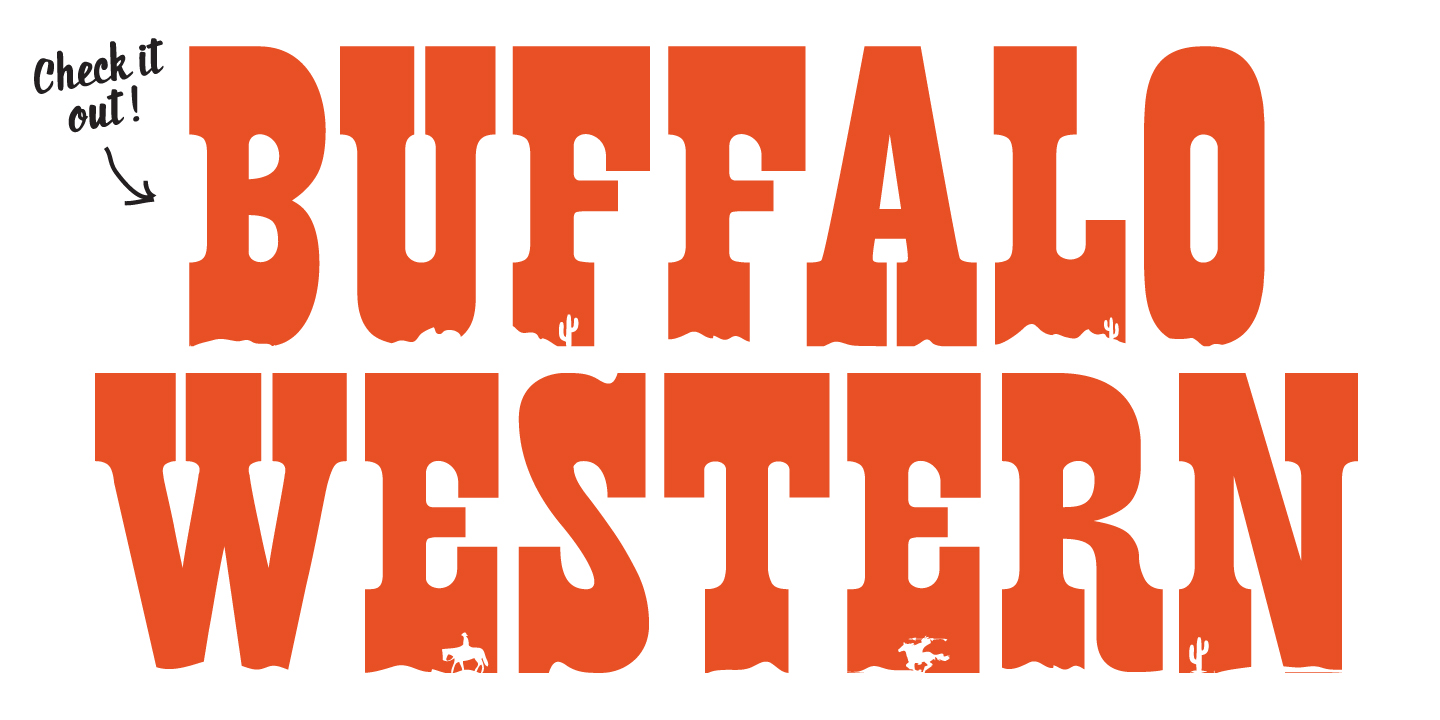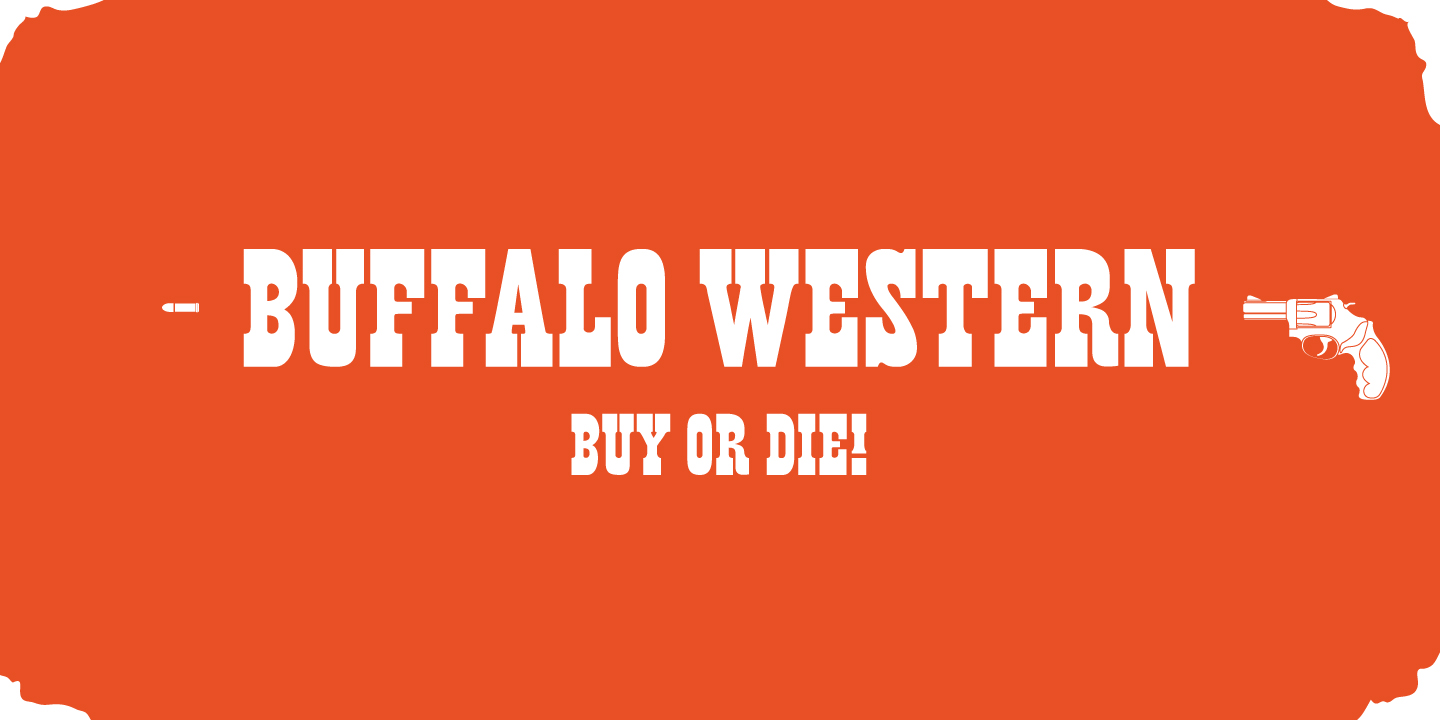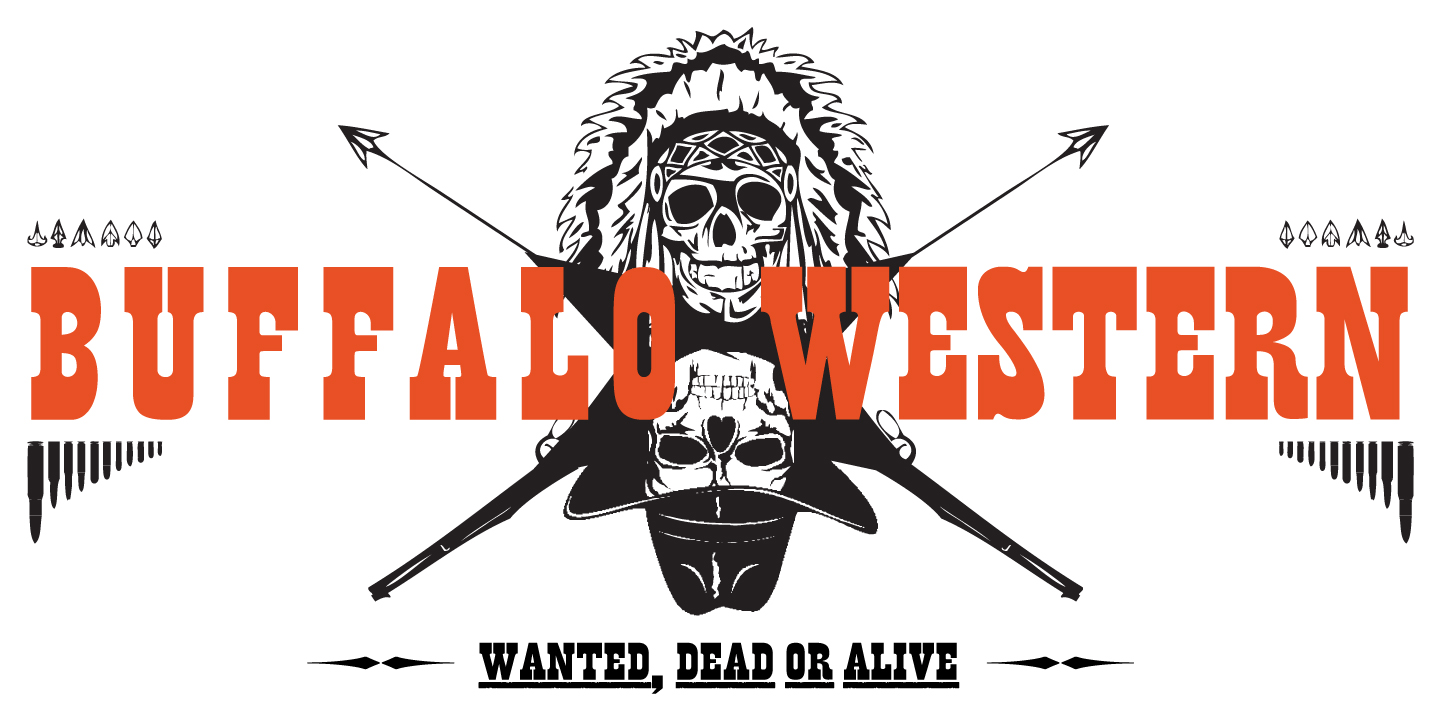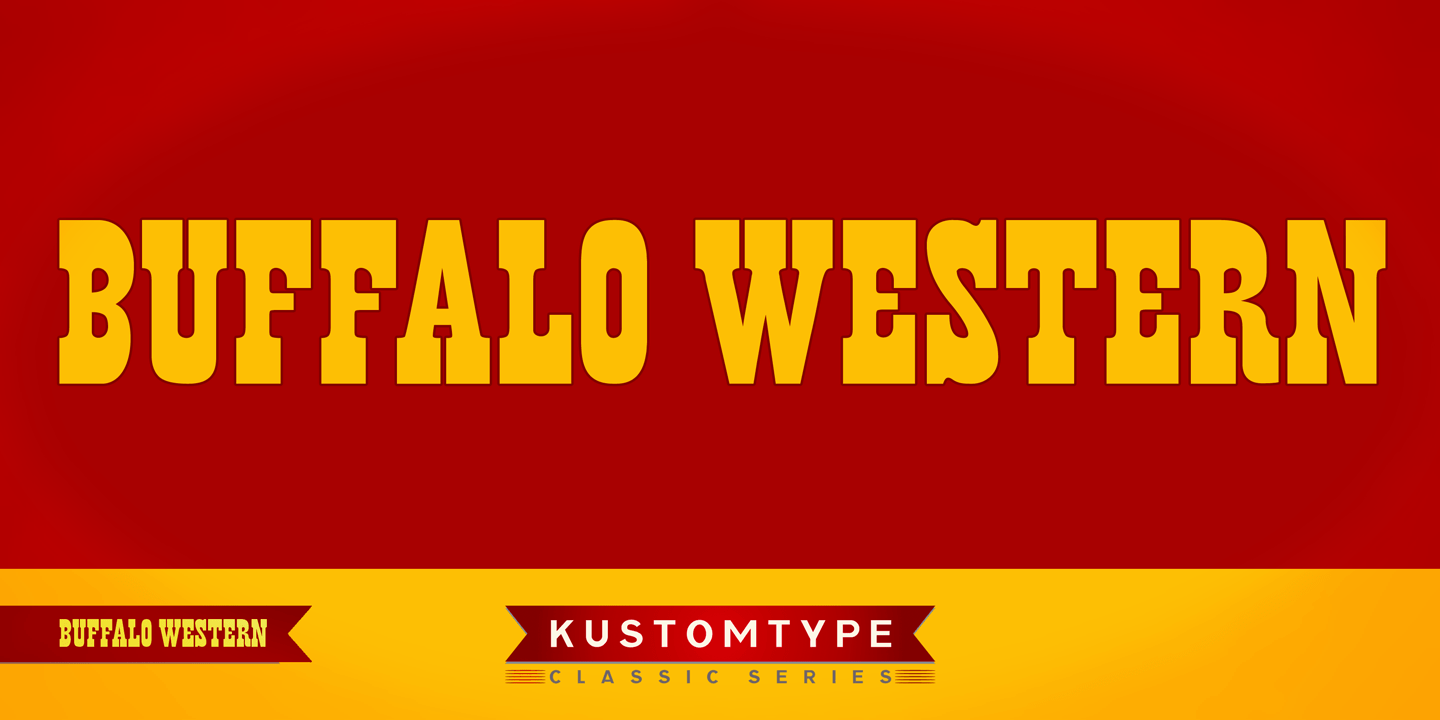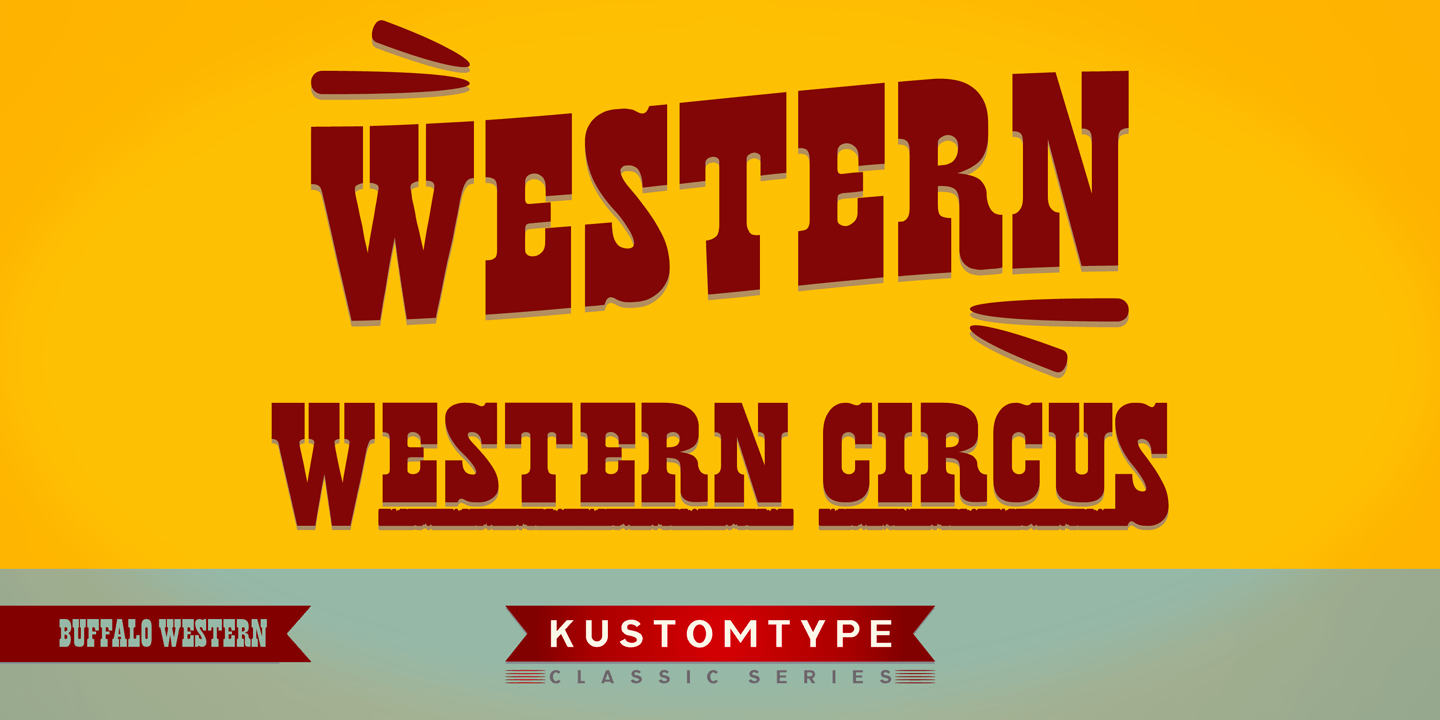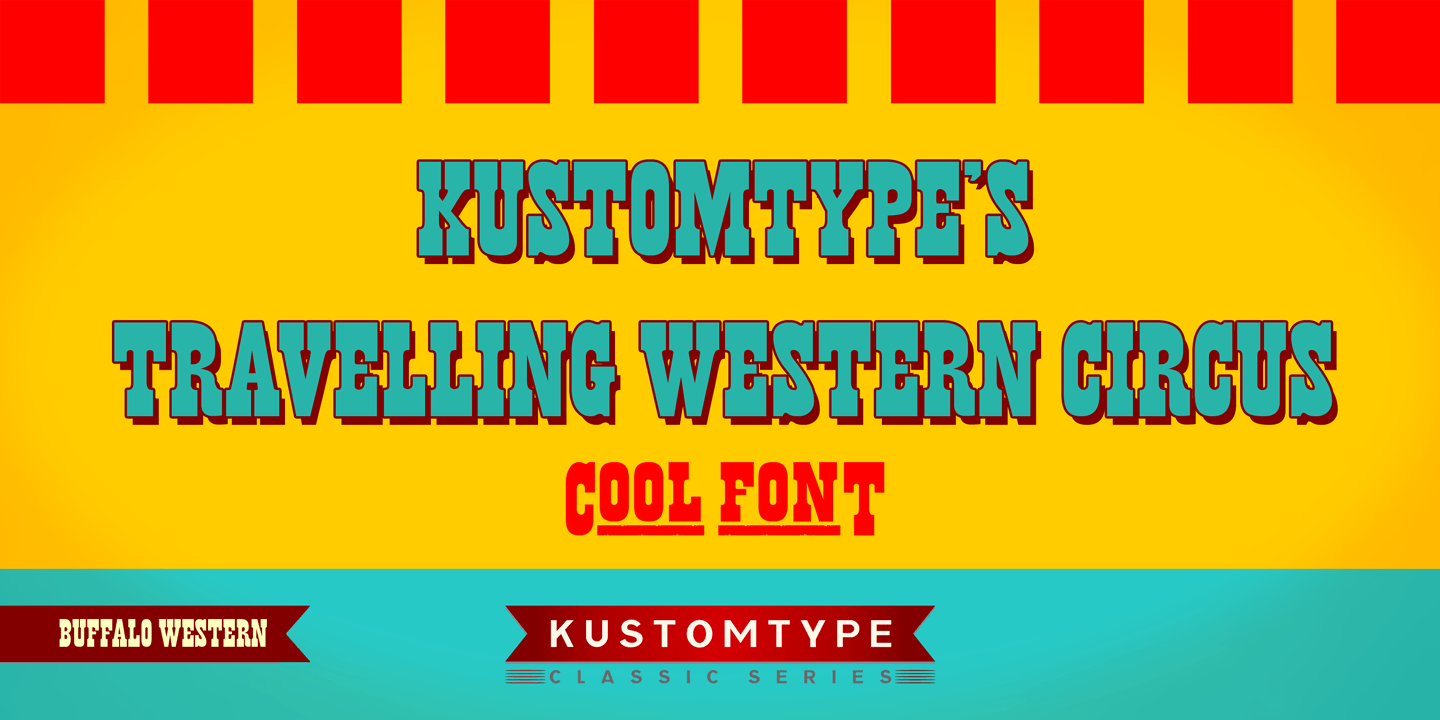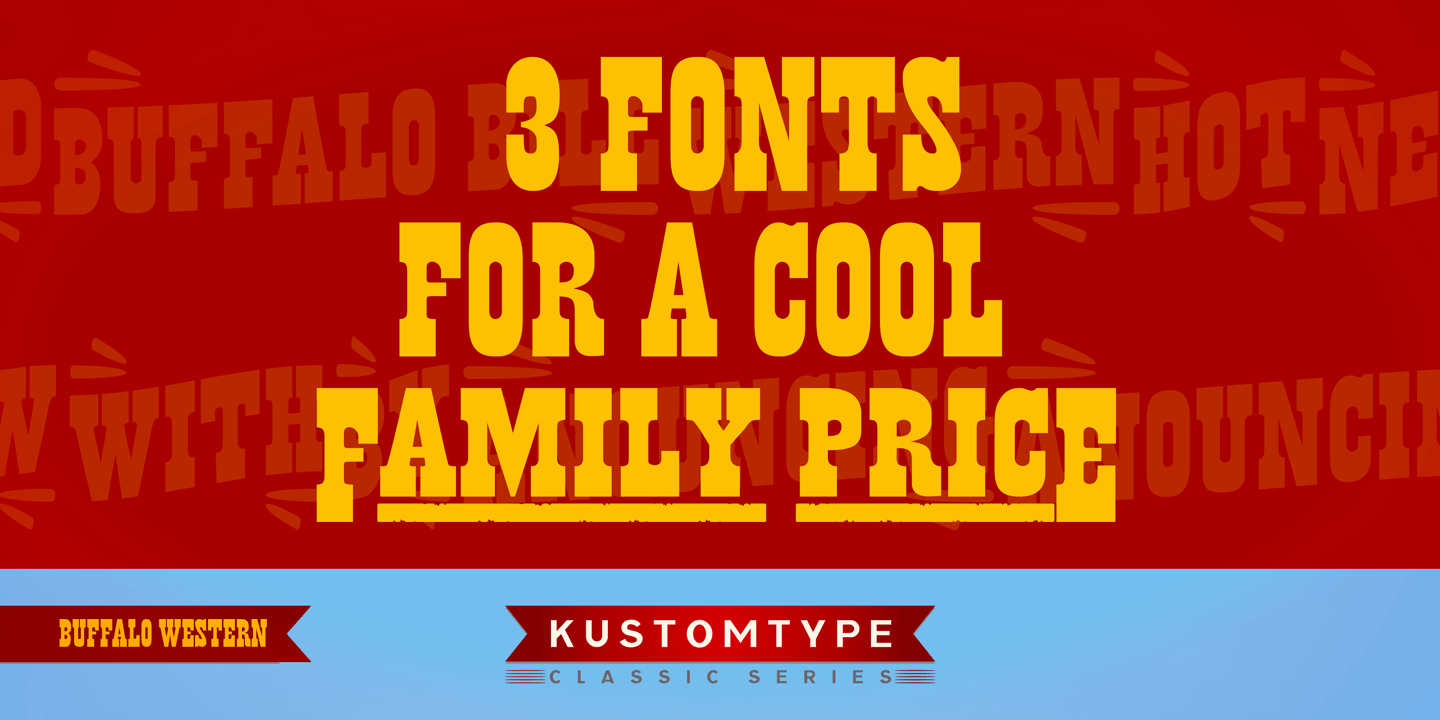
Buffalo Western
Font Family by Kustomtype
Frederick Cody, as known as Buffalo Bill, and his renowned travelling Western Circus are now celebrated through the creation of the Buffalo Circus and the Buffalo Western type fonts, both developed quite in the spirit of the stirring wood type fonts from the 19th century. All characters are fully hand traced and vectorized and provided with appealing glyphs and cool catchwords.